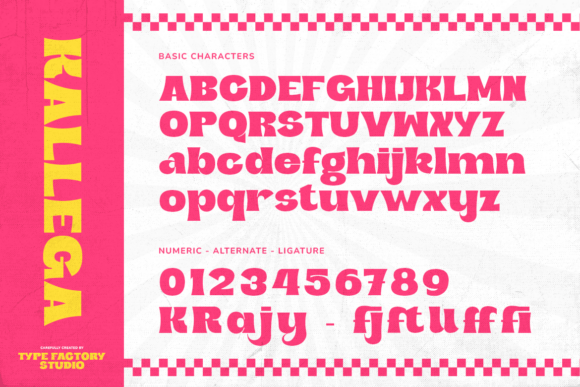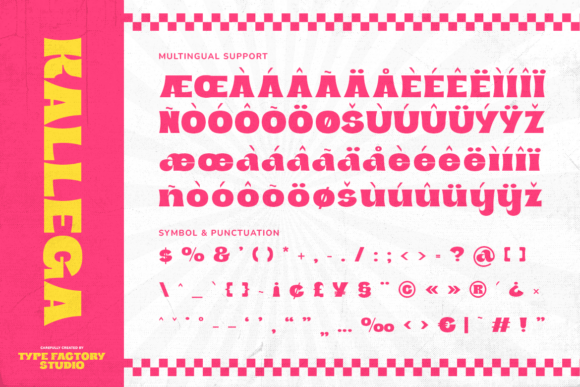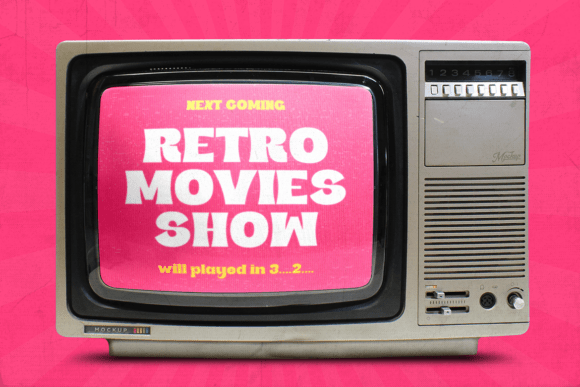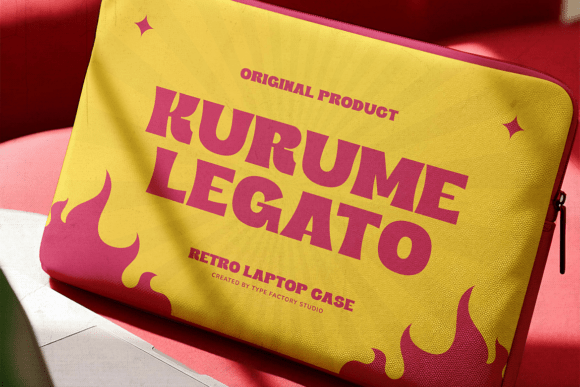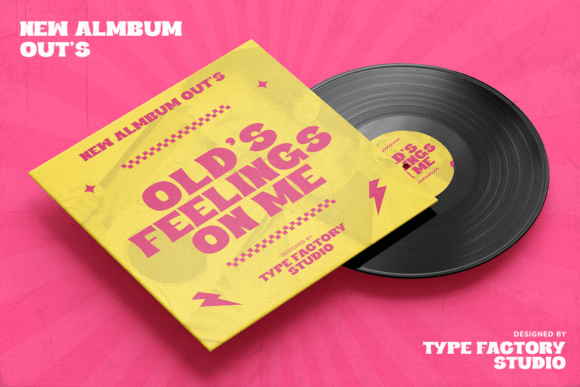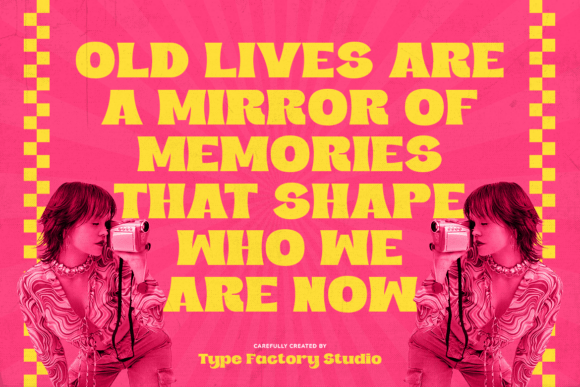
Introduction to Kallega Font
Remember that moment when you’re brainstorming ideas for a creative project and you’re stuck on the perfect font to make it pop? You scroll through your design resource library, searching for the perfect match. That’s exactly when you stumble upon the Kallega Font – a bold, retro display typeface that screams ‘attention-grabber’.
With its strong letterforms, chunky proportions, and playful curves, Kallega Font is the ultimate design solution for designers seeking high visual impact in large compositions. Whether you’re working on a poster, album cover, merchandise, or social media graphics, this font is sure to make your design stand out from the crowd.
Not only is Kallega Font a free download, but it also offers a transparent background, making it easy to incorporate into your design without any distractions. What’s more, it includes a wide range of characters, ligatures, and alternate characters, ensuring that your creative project looks polished and professional.
Key Features of Kallega Font
- High-quality design resource ideal for creative projects requiring a unique touch
- Features a transparent background, allowing for seamless integration with backgrounds
- Designed with precision, ensuring crisp and clear typography at high resolutions (up to 300 DPI)
- Includes a range of characters, including uppercase and lowercase letters, numbers, and punctuation
- Compatible with most operating systems and design software, including Adobe Creative Cloud
- Perfect for designers, artists, and creatives seeking a distinctive font for their next project
Honest Review: Kallega Font
I recently had the opportunity to try out the Kallega Font for a creative project and I must say it was a mixed bag. On the one hand, the font has some great features that make it a valuable resource for designers.
- ✨ High quality design: The Kallega Font is well-designed and visually appealing, making it a great choice for any creative project.
- ✨ Transparent background: The font’s transparent background allows for seamless integration with other design elements, giving you more creative freedom.
However, there are also some limitations to consider. For example:
- ⚠️ Limited character set: The Kallega Font only includes a limited character set, which may not be suitable for more complex designs.
- ⚠️ Not ideal for large-scale use: While the font is great for small-scale designs, it may not be the best choice for larger projects or commercial use.
Overall, the Kallega Font is a solid choice for designers who are looking for a high-quality, free font for smaller creative projects. While it may not be suitable for every use case, it’s definitely worth checking out if you’re on a budget or just need a reliable font for a specific project.
How to Use Kallega Font
The Kallega Font is a high-quality, free download design resource ideal for various creative projects. With its transparent background, it offers flexibility and versatility in design applications.
Tips for Getting the Most Out of Kallega Font
Experiment with different font sizes, colors, and styles to create visually appealing designs.
Use the transparent background feature to create seamless designs with other elements.
Common Use Cases for Kallega Font
Use the Kallega Font for various creative projects, such as:
– Social media graphics
– Blog posts
– Infographics
– Business cards
– Brochures